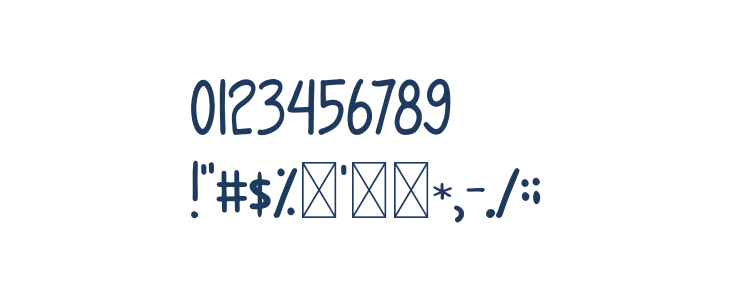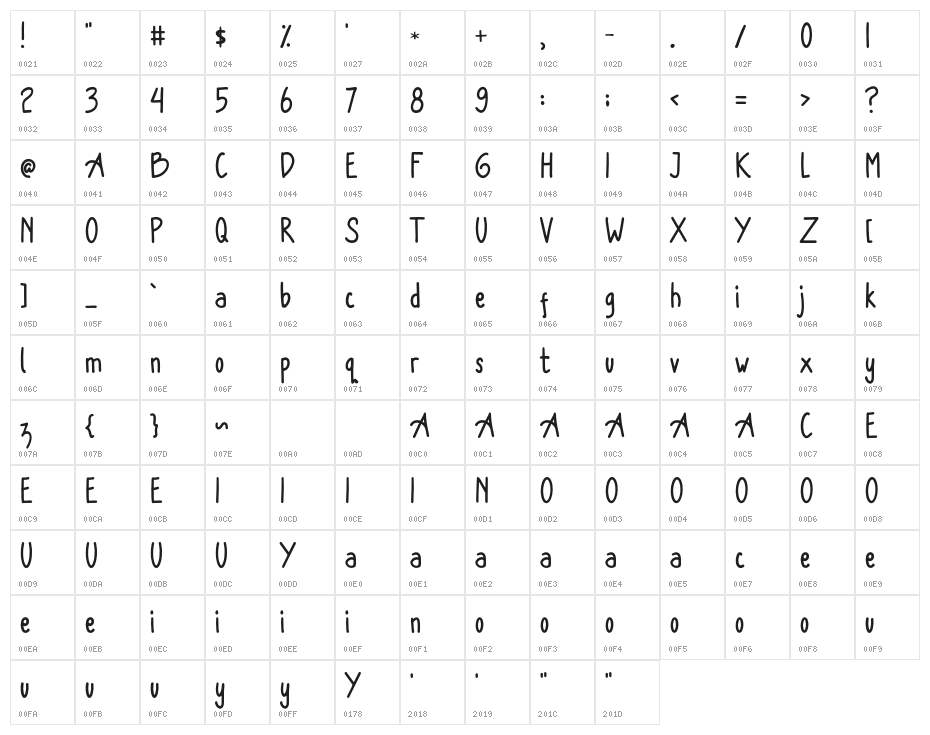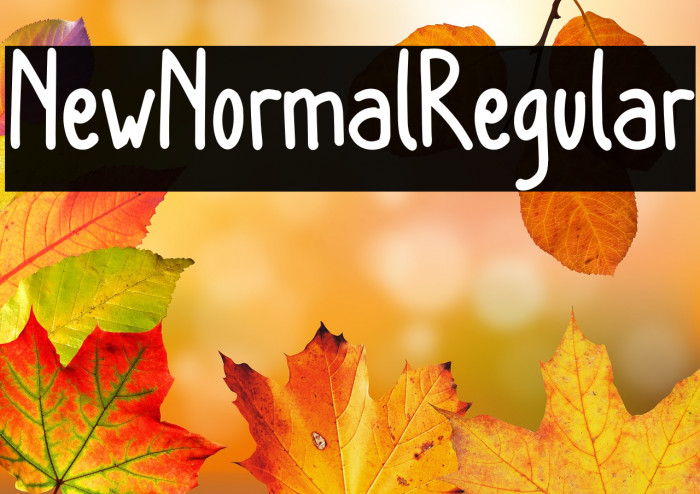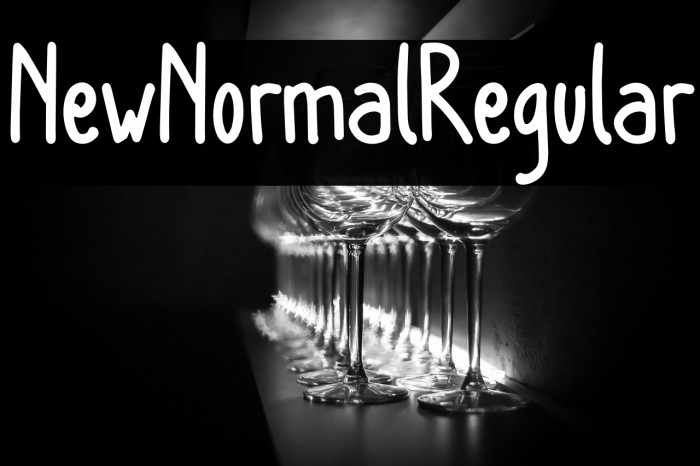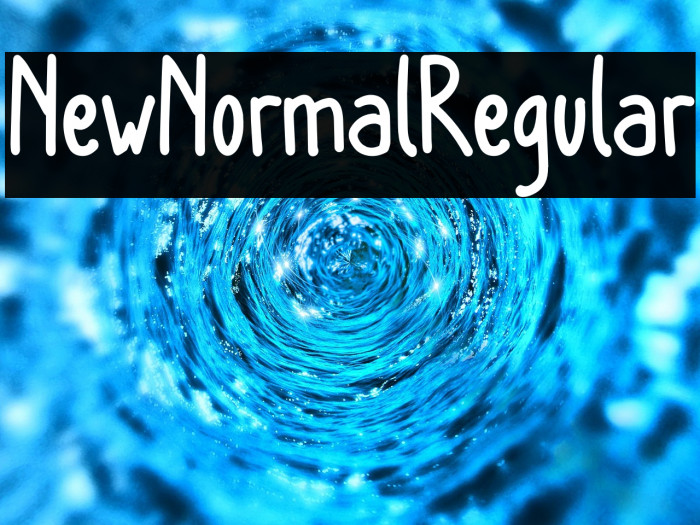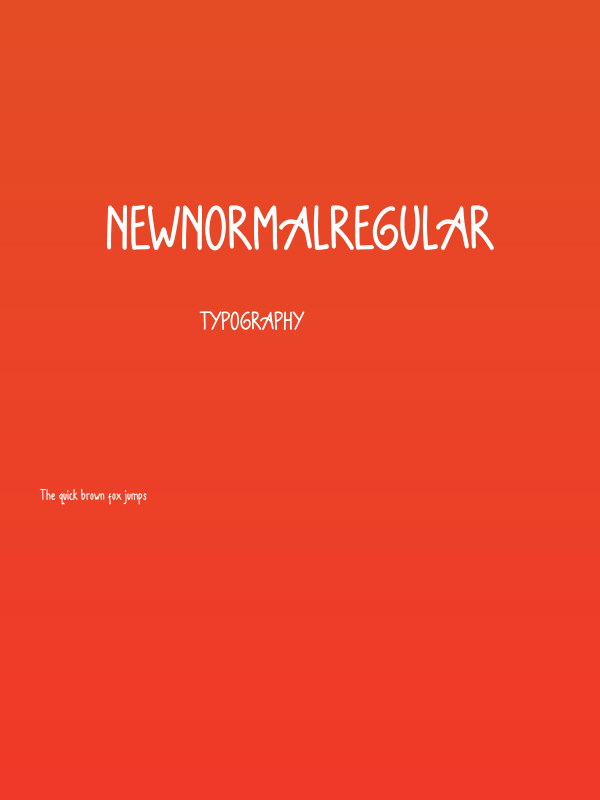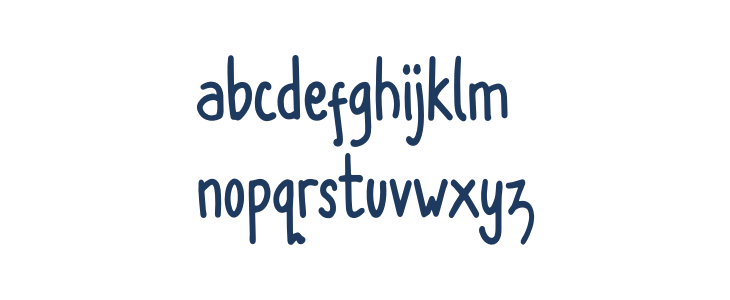
NewNormalRegular Font
NewNormalRegular Description
This font features a playful and informal handwritten style, characterized by its rounded and slightly irregular letterforms. The uppercase and lowercase letters maintain a consistent flow, with a casual and friendly appearance. The numerals are clear and legible, matching the overall style of the alphabet. Special characters are included, adding versatility for various uses. The strokes are uniform in thickness, contributing to a cohesive look. This font exudes a sense of approachability and creativity, making it suitable for projects that require a personal touch.
| Overall Style | Casual |
| Use Case | Headlines, Logos, Informal Text |
| Proposed Projects | Ideal for children's books, greeting cards, personal blogs, and creative branding projects. |